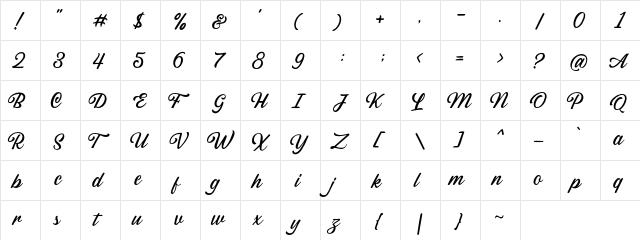
Sabatons Script DEMO Regular
| Foundry | Letterhend Studio |
| Designer | Letterhend Studio |
Design Context for Sabatons Script DEMO Typeface
Sabatons Script DEMO brings a calligraphic fluidity to the page — its connecting strokes and expressive curves give it an unmistakably human quality.
Font Pairing: Combine Sabatons Script DEMO with a simple geometric sans for maximum contrast — the tension between flowing curves and clean structure is a classic typographic pairing.
Pro Tip: Use Sabatons Script DEMO for short runs of text — names, titles, or taglines. Extended body copy in script faces tires the eye quickly.